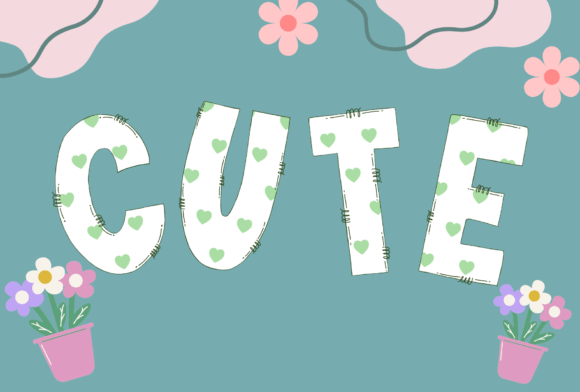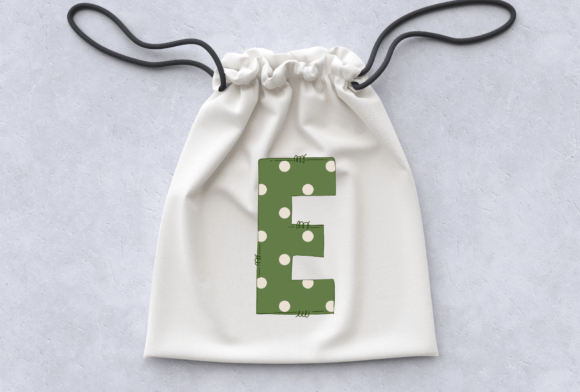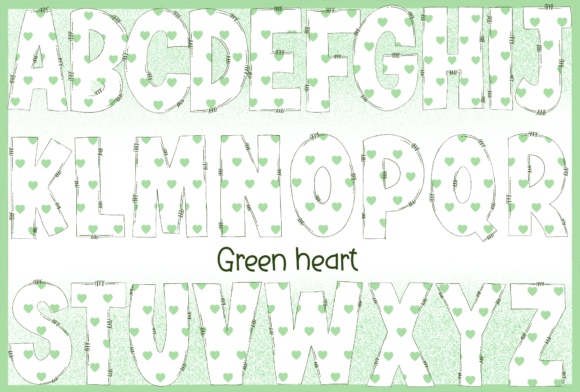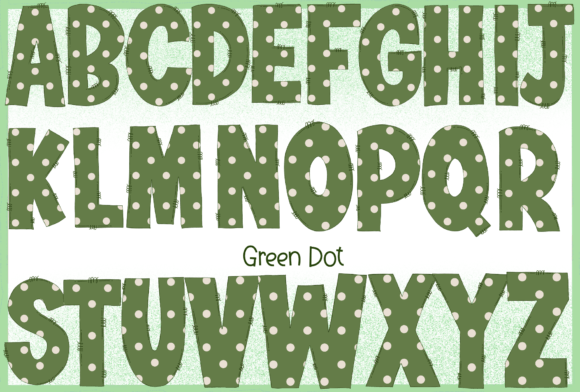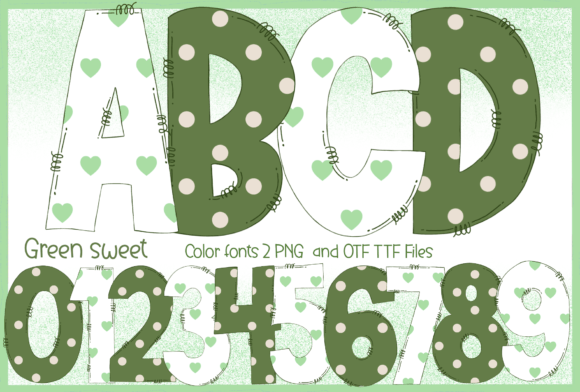
Introducing Green Sweet Font: A Fresh and Versatile Color Display Font
Are you looking for a font that can add a touch of simplicity and elegance to your designs? Look no further than the Green Sweet Font, a beautiful color display font that’s perfect for a variety of projects. In this article, we’ll explore the features and benefits of Green Sweet, and show you how to make the most of this amazing font.
What is Green Sweet Font?
Green Sweet is a color display font with a simple and clean style, making it ideal for teaching, presentations, and a range of other applications. Its versatile design ensures that it can be used for education, advertising, illustration, and many other purposes. Whether you’re a designer, teacher, or crafter, Green Sweet is a great addition to your font collection.
Key Features of Green Sweet Font
- Color Font (Opentype-SVG): Green Sweet is a color font, which means it can be used in a variety of applications, including PhotoShop, Illustrator, Silhouette, and Inkscape.
- Simple and Clean Style: The font features a simple and clean design, making it perfect for teaching, presentations, and other educational materials.
- Wide Range of Uses: Green Sweet can be used for education, advertising, illustration, and many other purposes, making it a versatile addition to your font collection.
Green Sweet Font offers a range of benefits for designers and crafters, including:
- High-Quality Design: Green Sweet features a high-quality design that’s perfect for professional-looking projects.
- Versatility: The font can be used for a wide range of projects, from educational materials to advertising and illustration.
Tips for Using Green Sweet Font
To get the most out of Green Sweet Font, here are a few tips:
- Experiment with Colors: Green Sweet is a color font, so don’t be afraid to experiment with different colors and combinations.
- Use it for Headings and Titles: The font’s simple and clean design makes it perfect for headings and titles.
- Pair it with Other Fonts: Green Sweet can be paired with other fonts to create a unique and visually appealing design.
Green Sweet Font is a versatile and elegant color display font that’s perfect for designers, teachers, and crafters. With its simple and clean design, wide range of uses, and compatibility with popular design software, Green Sweet is a great addition to any font collection. Whether you’re looking to create educational materials, advertising, or illustration, Green Sweet Font is the perfect choice.